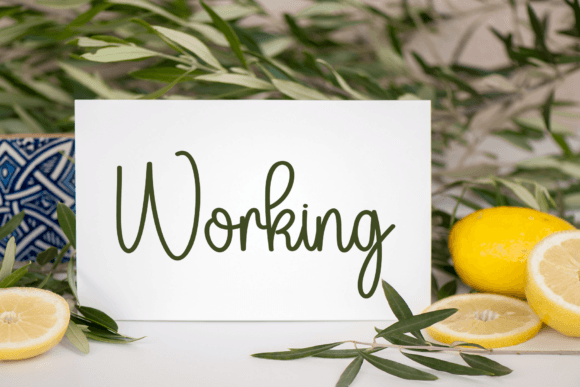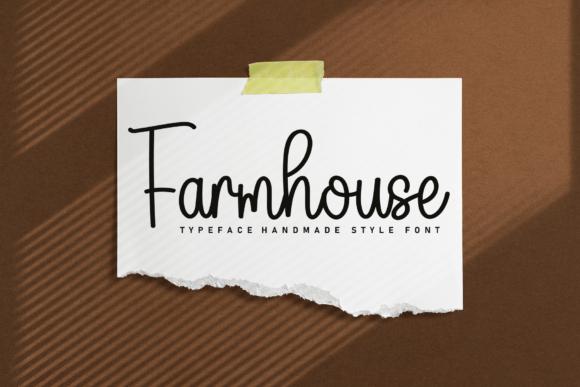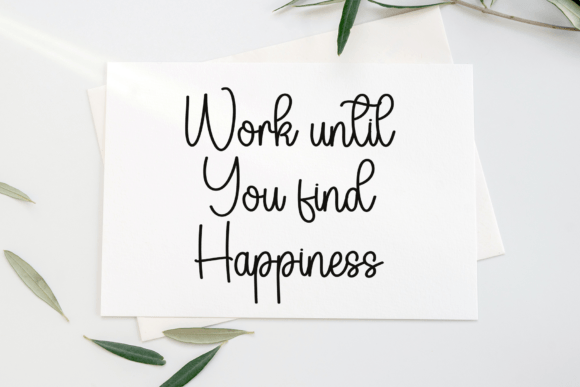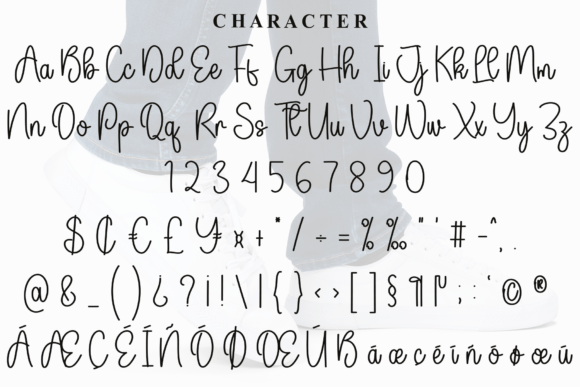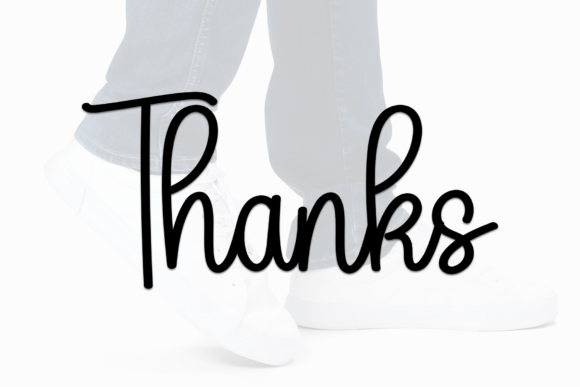
Casual Font: Elevate Your Designs with Delicate Elegance
Are you on the hunt for a font that exudes elegance and sophistication? Look no further than Casual, a stunning handwritten font that is sure to capture your heart. With its delicate and refined features, Casual is the perfect choice for designers and crafters seeking to add a touch of luxury to their creations.
The Distinctive Charm of Casual Font
Casual font is a masterpiece of typographic design, boasting distinct and well-balanced letters that set it apart from other fonts. Its unique character is both captivating and versatile, making it an excellent addition to any design project. Whether you’re working on a branding campaign, a wedding invitation, or a social media graphic, Casual font is sure to make your designs shine.
One of the standout features of Casual font is its incredible versatility. This font can be used in a wide range of design applications, from elegant and sophisticated to playful and whimsical. Whether you’re aiming for a classic and timeless look or a more modern and trendy feel, Casual font adapts seamlessly to your design vision.
Casual font is a dream come true for designers and crafters seeking to elevate their creations. With its delicate and elegant features, this font is perfect for:
• Branding and packaging design
• Blog and website headers
• Signage and display graphics
Why Choose Casual Font?
So, what sets Casual font apart from other fonts? Here are just a few reasons why designers and crafters love this beautiful font:
• Unique character: Casual font boasts a distinctive and well-balanced design that is sure to capture attention.
• Versatility: This font can be used in a wide range of design applications, from elegant to playful.
• Elegance: Casual font exudes sophistication and refinement, making it perfect for high-end designs.
• Easy to read: Despite its delicate features, Casual font is surprisingly easy to read, making it perfect for body text and headlines.
Tips for Using Casual Font
To get the most out of Casual font, here are a few tips to keep in mind:
• Pair with contrasting fonts: Casual font pairs beautifully with bold and sans-serif fonts, creating a striking contrast that adds visual interest.
• Experiment with colors: This font looks stunning in a range of colors, from soft pastels to rich jewel tones.
• Play with sizes: Casual font can be used in a range of sizes, from large headlines to smaller body text.